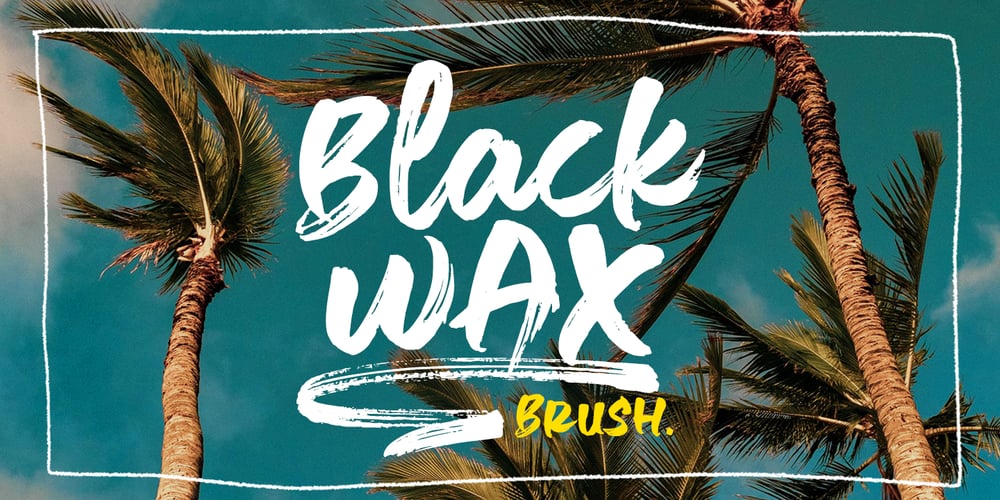
Black Wax Font Family was designed by Mauli Zari and published by Dhan Studio. Black Wax contains 2 styles and family package options. Black Wax is textured brush font, contemporary approach to design, handmade natural with an irregular baseline. Suitable for use in title design. Such as apparel, stationery design, quotes, branding, logos, greeting card, t-shirt, invitations, books tittle, packaging design, poster and more.Black Wax includes some underlines and a complete set of uppercase and lowercase letters, as well as multi-language support, numbers, punctuation.